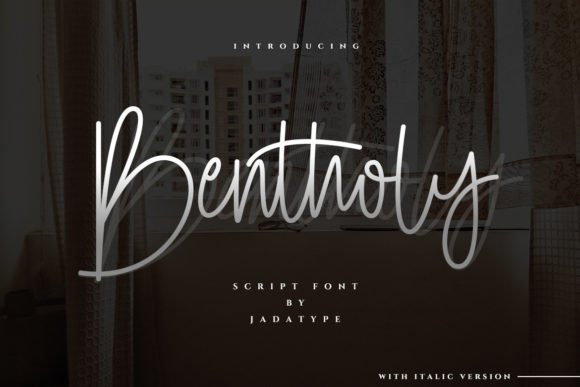
The Perfect Script for Your Next Masterpiece
There’s nothing quite like the thrill of creating something new. The blank page, the endless possibilities, and the rush of adrenaline as your ideas start to take shape. For designers, this moment is a constant source of inspiration, driving us to push the boundaries of what’s possible. And it’s in these moments that the right font can make all the difference.
Enter the Bentholy Font, a chic, thin script font that embodies sophistication and elegance. Its stylish alternates and ligatures make it the perfect match for any project, from high-end fashion labels to luxury brands. Whether you’re a seasoned pro or just starting out, the Bentholy Font is a valuable addition to your design arsenal, offering a level of sophistication and refinement that’s hard to find elsewhere.
With the Bentholy Font, you’ll be able to bring your most ambitious projects to life with ease, adding a touch of class and distinction that’s sure to impress. So why settle for anything less when you can have the best? Discover the Bentholy Font today and take your designs to the next level.
Bentholy Font Key Features
- Font Family: Bentholy is a unique, handwritten font family designed to evoke a sense of elegance and sophistication.
- Character Set: The font family includes a wide range of characters, including uppercase and lowercase letters, numerals, punctuation marks, and special characters.
- Size and Resolution: Designed to be scalable, Bentholy font is suitable for use at various sizes, from 12pt to 72pt, and resolutions up to 1200 dpi.
- Unique Characteristics: The font’s distinctive, flowing lines and organic feel make it perfect for creating visually appealing and eye-catching designs.
Bentholy Font Review
I recently had the chance to work with the Bentholy font, and I must say, it’s been an interesting experience. Here are my thoughts on what works well and what doesn’t.
The Bentholy font has a unique, hand-drawn feel that sets it apart from other fonts. It’s perfect for designs that need a touch of whimsy or personality.
The font is highly customizable, with a wide range of weights and styles to choose from. This makes it a great option for designers who want to create complex, multi-element designs.
Despite its playful feel, the font is surprisingly legible, even at small font sizes. This makes it a great option for body text or other areas where readability is crucial.
The Bentholy font can be a bit overwhelming in large quantities. Be careful not to overuse it, or your design may start to feel cluttered and busy.
The font’s unique feel can also make it difficult to pair with other fonts. Be prepared to spend some time experimenting with different combinations to find one that works.
Finally, the font’s customization options can be a bit overwhelming. Be careful not to get too carried away with the options, or you may end up with a design that’s more complicated than it needs to be.
Overall, I think the Bentholy font is a great option for designers who want to add some personality to their designs. While it has some limitations, its unique feel and high level of customization make it a versatile and effective choice. With a little care and attention, I think it could be a real game-changer for designers who want to stand out from the crowd.
Tips for Getting the Most Out of Bentholy Font
Experiment with different font sizes, colors, and styles to achieve the desired effect.
Use Bentholy font in combination with other fonts to create visually appealing designs.
Apply the font to various design elements, such as headings, paragraphs, and titles.
Bentholy font is suitable for various design projects, including: